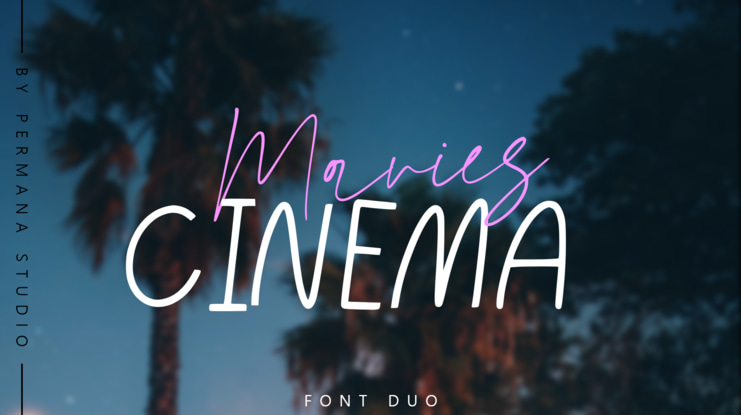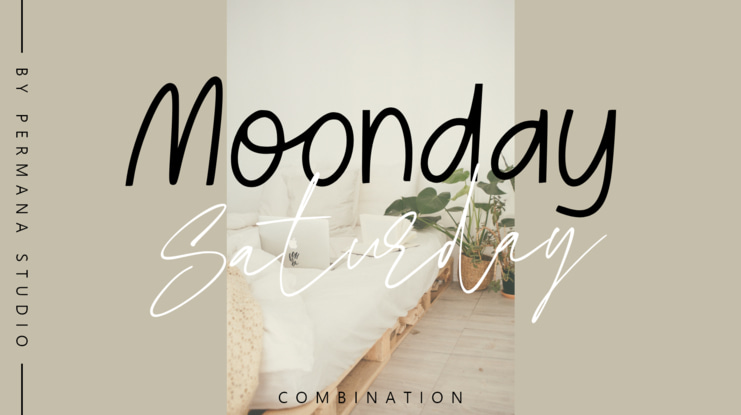
Dagota Melisa Font
Dakota Melisa is a handwritten sans style with a moonflash font combination. equipped with Lowercase Letters, Symbols and number binders.Dakota Melisa is suitable for use for invitations, posters, sentence quotes, children's t-shirt designs, and more.